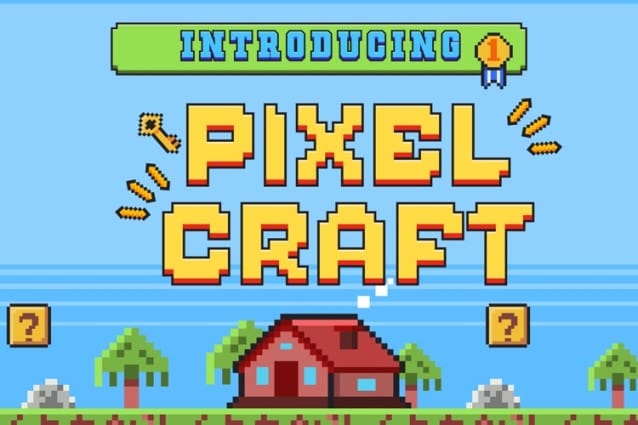
Pixelcraft Font
Pixelcraft Font is a vibrant, quirky, and colorful typeface, perfect for making your words stand out. It’s bold, playful, and full of energy, with bright and unique letter forms that lend a creative touch to any project. It’s a great choice for adding a touch of fun and silliness to your designs.